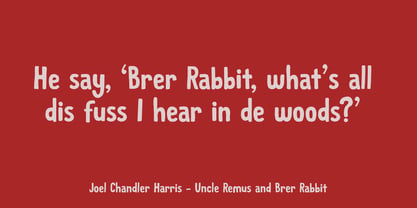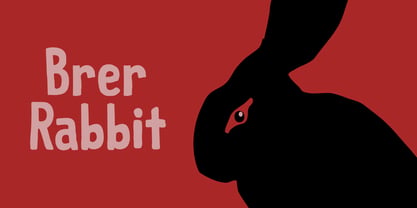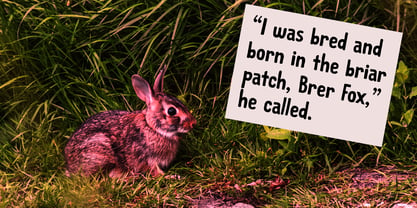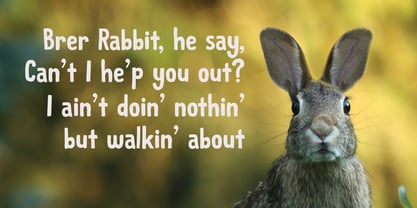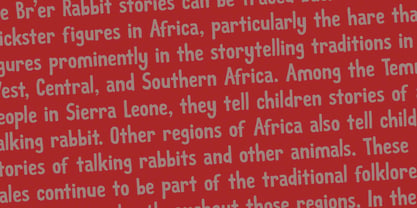
Brer Rabbit Pro
by Hanoded
The Brer Rabbit Pro Font Family was designed by David Kerkhoff and published by Hanoded. Brer Rabbit Pro contains 2 styles and family package options. More about this family
Brer Rabbit (or Brother Rabbit) is the central figure in an oral tradition passed down by African-Americans. Brer Rabbit is a trickster, just like the other popular trickster character in African stories called Anansi the spider.
Brer Rabbit was based on an old font of mine called Rabbit On The Moon.
It is a nice, cute children’s book font that comes with extensive language support and Brer Rabbit himself, in the shape of the alternative asterisk glyph.
Designers: David Kerkhoff
Foundry: Hanoded
Hanoded is run by Dutchman David Kerkhoff. His fonts are a mishmash of styles, as he just creates whatever pops into his head. You will find a lot of brush fonts in his collection, as his favourite tools are brushes and Chinese ink, with cartoon style fonts and script fonts complementing his repertoire. Aside from making fonts, David occasionally guides tours in far-flung places, renovates his '30's house and tries reasoning with his wife and (teenage) kids. Not an easy task!